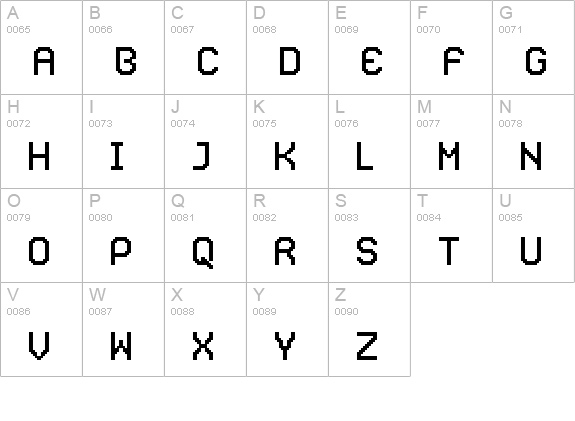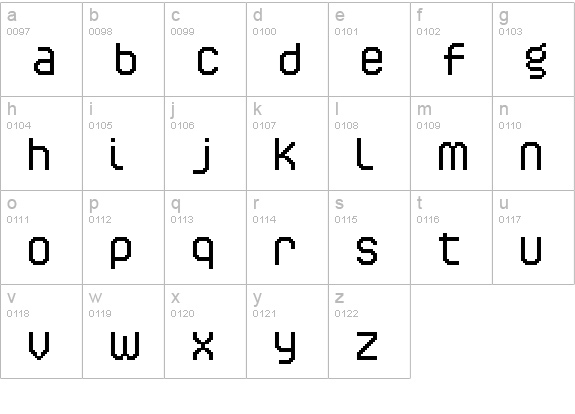
CALIPER-555SS is a modern and sleek font that exudes sophistication and elegance. With its clean lines and sharp edges, this font is perfect for creating a professional and polished look in your designs. The versatile nature of CALIPER-555SS allows it to be used in a variety of projects, from branding to editorial design. This font is completely free to download at FontsMarket.com, making it easily accessible for designers and creatives looking to elevate their work with a touch of sophistication. Whether you are working on a print project or a digital design, CALIPER-555SS is sure to make a statement and leave a lasting impression on your audience. Add a touch of class to your designs with CALIPER-555SS today.